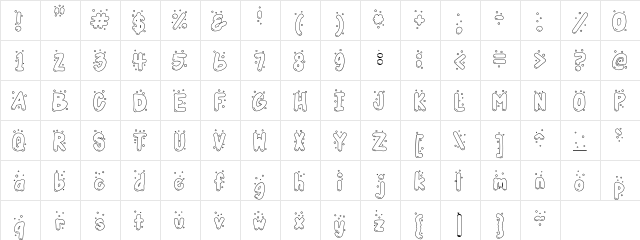
Scrap Bubbles Regular
Design Context for Scrap Bubbles Typeface
Scrap Bubbles has an approachable, lighthearted character — its loose, expressive forms are well-suited to children's content, casual branding, and fun-first design.
Font Pairing: Pairs well with a rounded or humanist sans for body copy, maintaining the friendly tone without relying on Scrap Bubbles to carry extended reading.
Pro Tip: Use Scrap Bubbles at larger display sizes where its expressive character can land. Pair with a clean, simple sans for body copy to maintain readability.